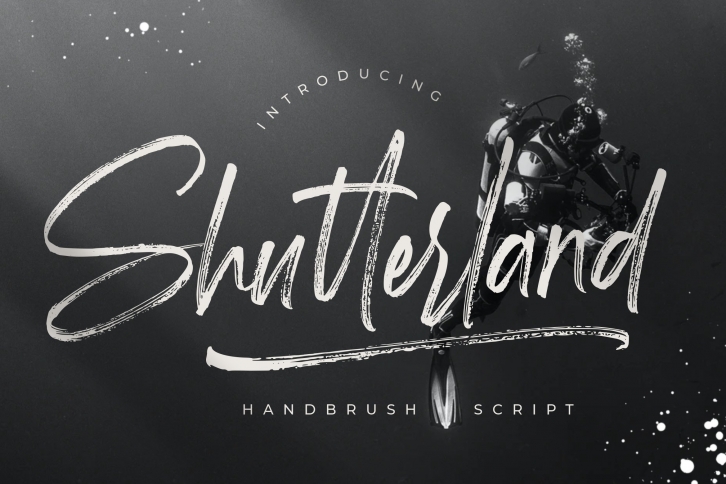
Shutterland Handbrush Script FONT Download
Shutterland Handbrush Script is a gorgeous font that was realeased on January 22, 2021. The font can be used in many style contexts and design environments. Perfect for invitations, magazines, websites, logos, and more! It was designed by Creatype Studio and the file size is 21.35 MB. Thanks for checking out this font!